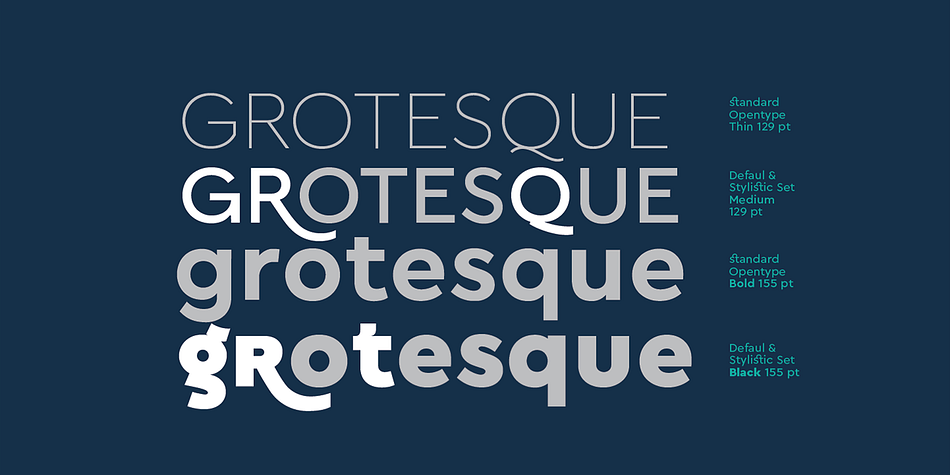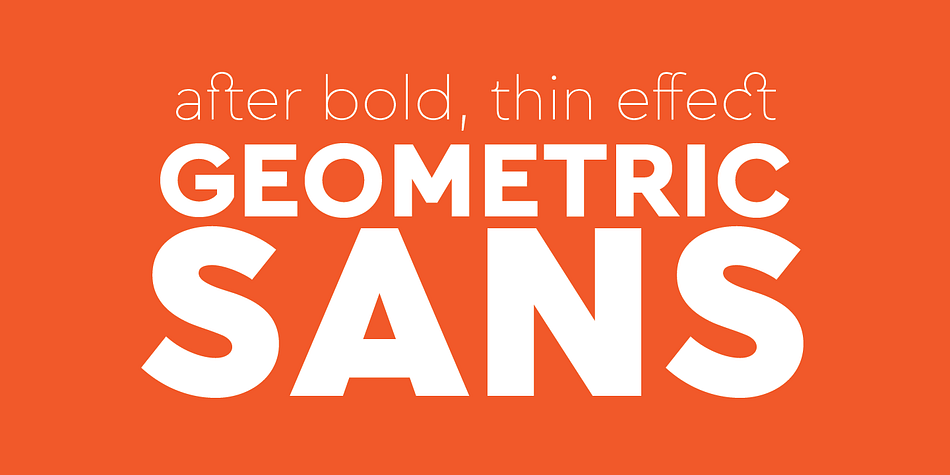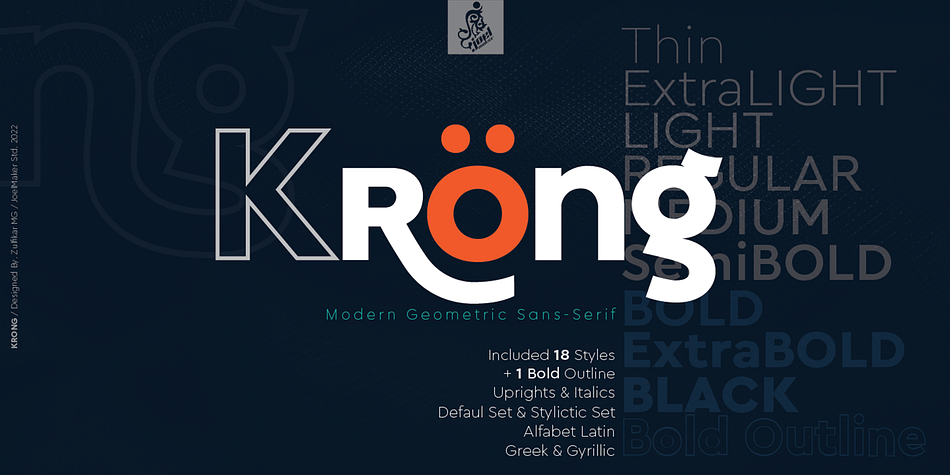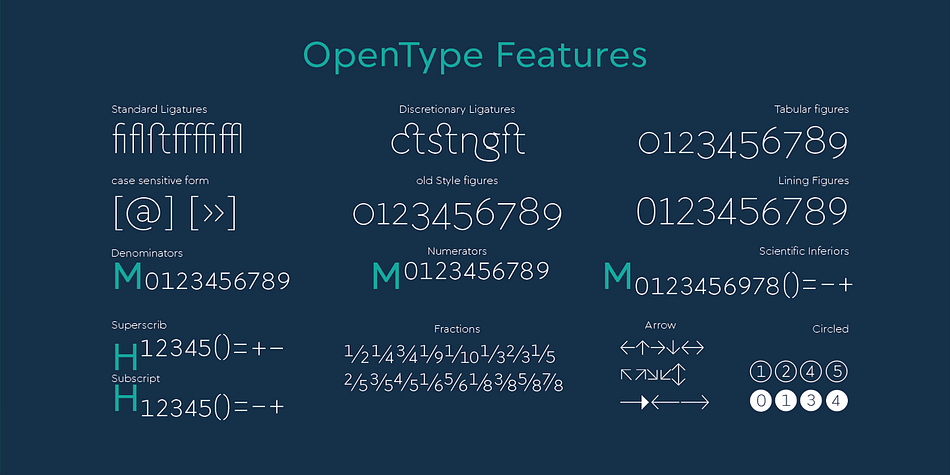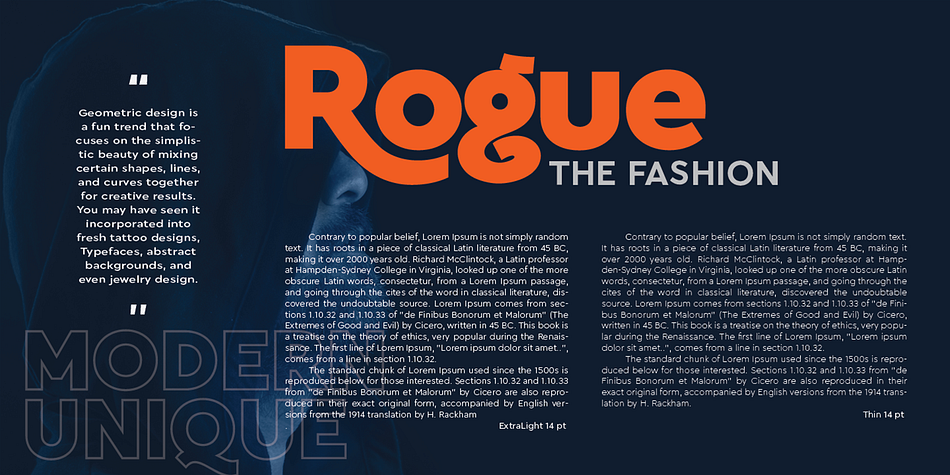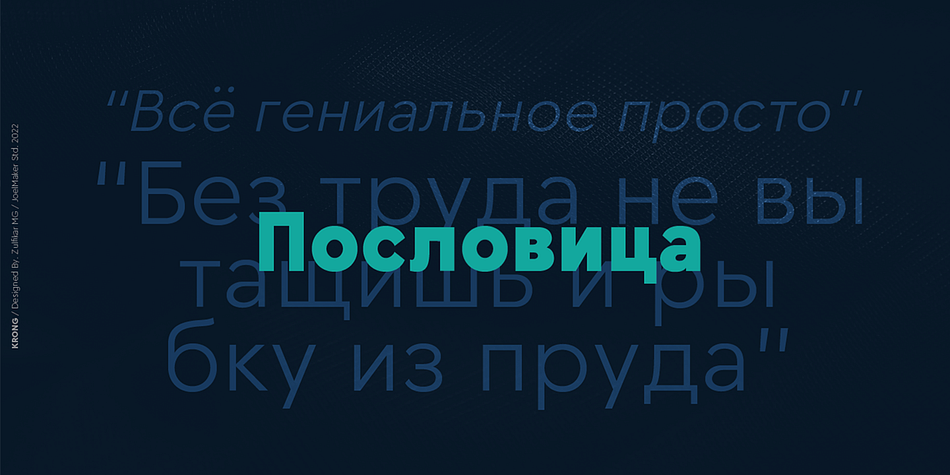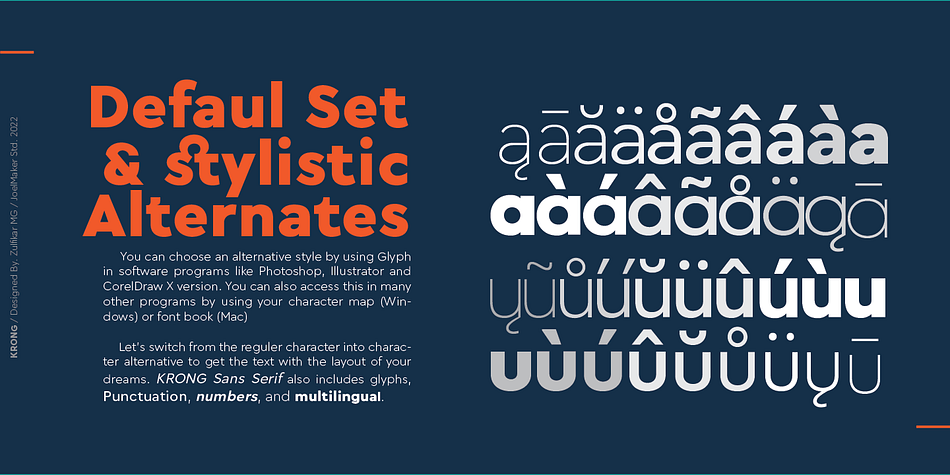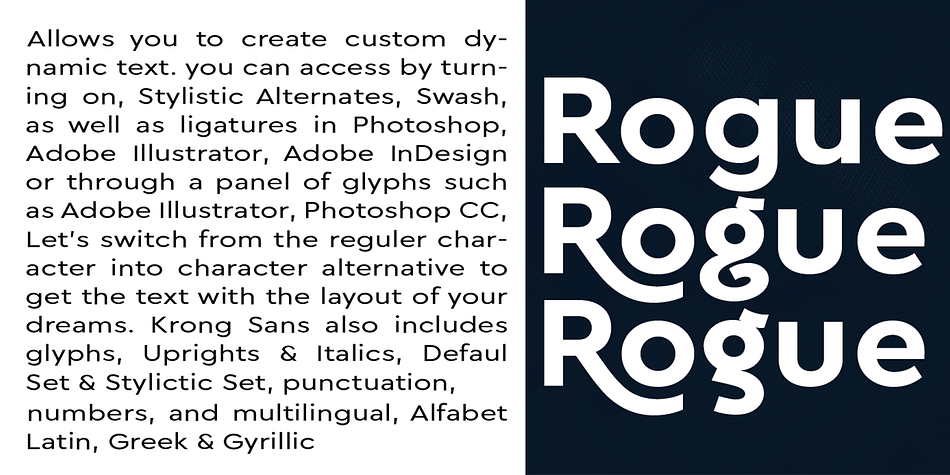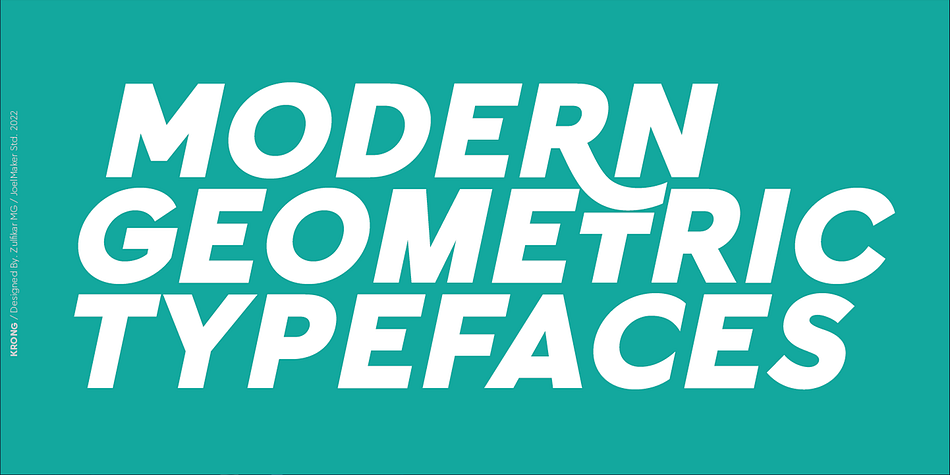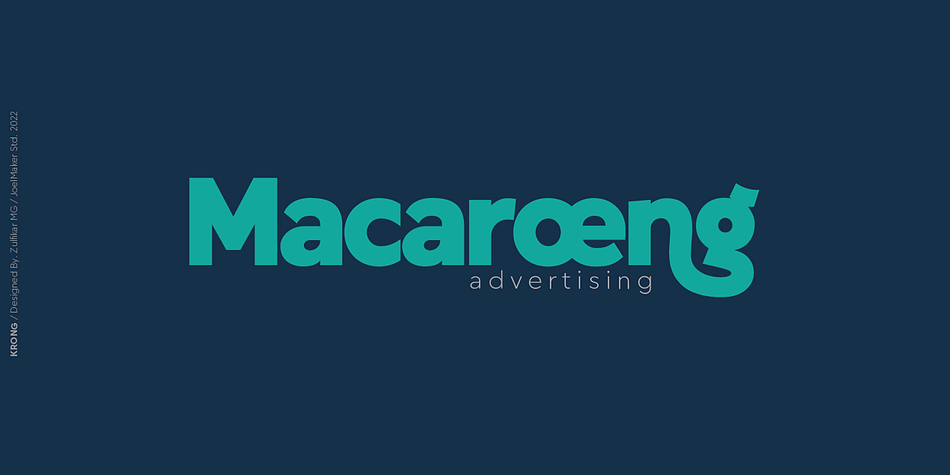
Designed by Zulfikar MG, Krong Sans is a sans serif font family. This typeface has nineteen styles and was published by joelmaker.
Krong is a set of font family, modern Geometric in which there are several combinations of unique style sets, inspiration from old letters and combined with a contemporary design, so ready to help you to make your designs look elegant.
Krong Each contains nine weights ranging from Thin to ExtraBold, all with companion italics. The font includes more than 819 glyphs, covering all European languages written in Latin script.
Krong OpenType features: Stylistic Alternates, Sylistic Set, Standard Ligatures, Discretionary Ligatures for lowercase and uppercase, Case Sensitive Forms, Arrows, Circled and Black Circled Figures, Proportional Old Style figures, Tabular Lining figures, Slashed Zero, Fractions, Superscript and Subscript figures.